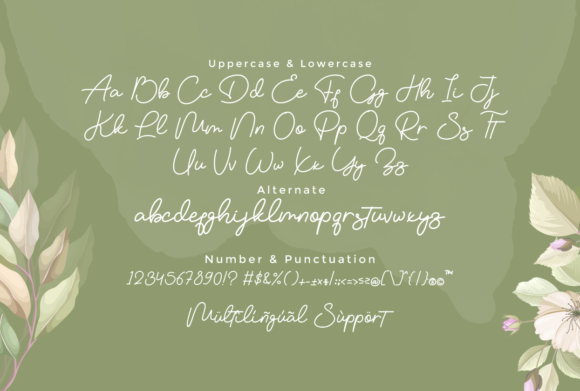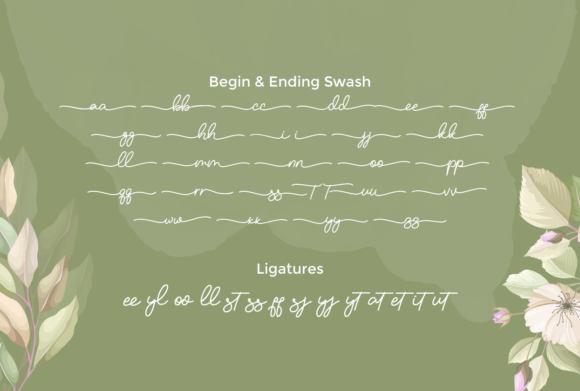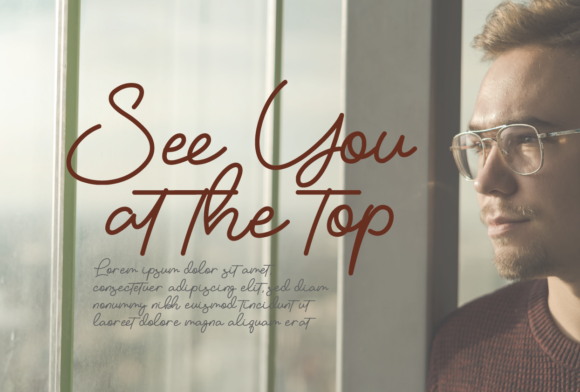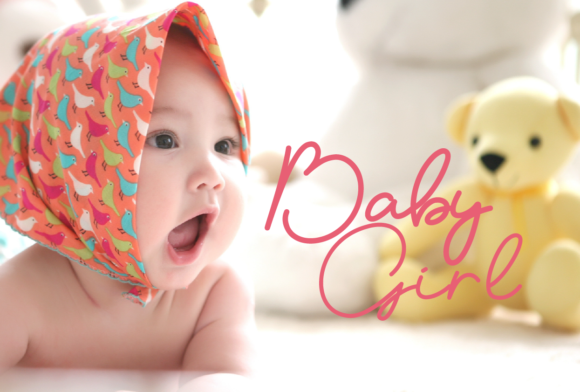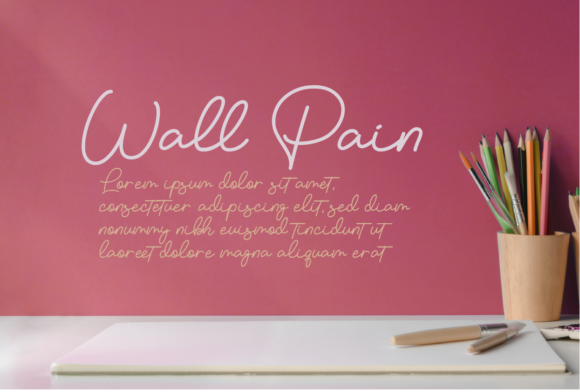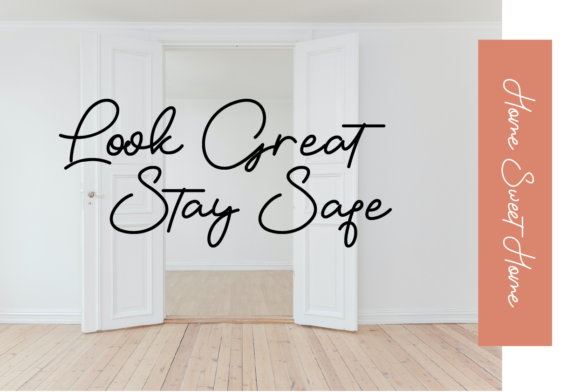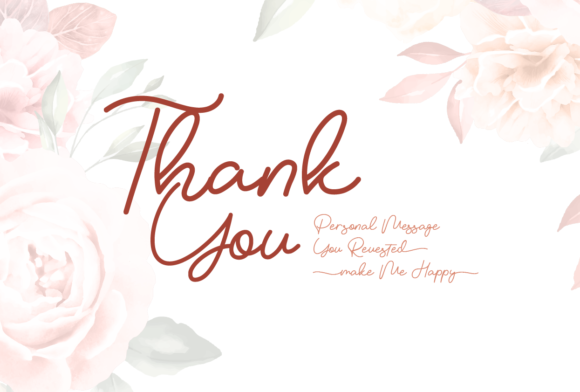
Vemina Script Font
About Vemina Script Font
Vemina Script is a sweet and flowing handwritten font. Its natural and unique style makes it incredibly fitting to a large pool of designs. This font is PUA encoded which means you can access all of the glyphs and swashes with ease!